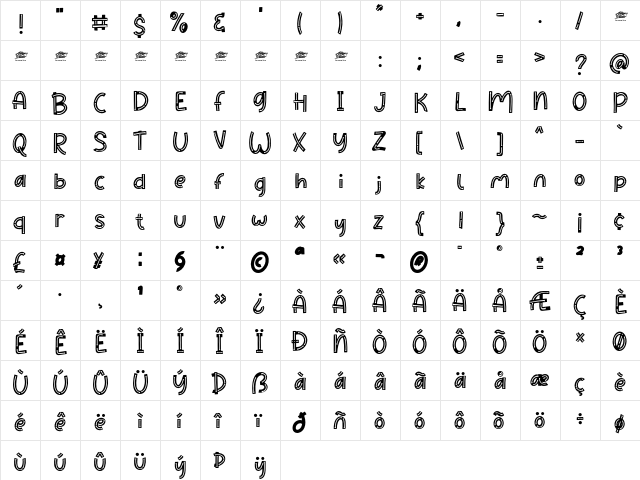
Bone Master Display - Personal Regular
Design Context for Bone Master Display - Personal Typeface
Bone Master Display - Personal brings ornamental detail and strong personality to headlines and identities, where visual impact matters more than quiet functionality.
Font Pairing: Pair with a clean neutral sans-serif for body copy to let Bone Master Display - Personal's character lead without overwhelming the composition.
Pro Tip: Use Bone Master Display - Personal exclusively at display sizes — it was designed to be seen, not read at length. Let a neutral companion handle body copy.